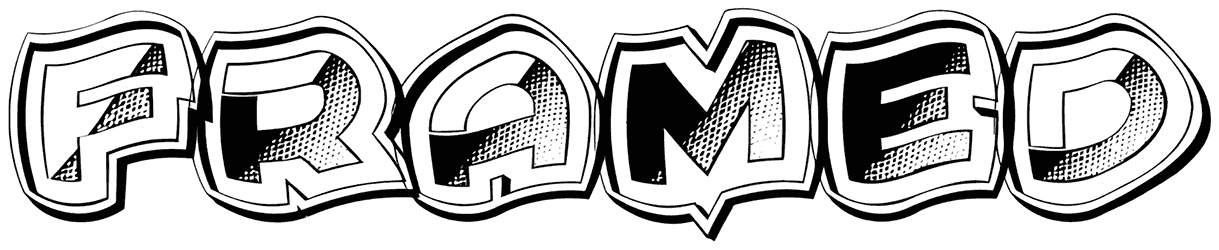
Framed Font
Framed font characters look like metal pieces stuck into bubbles suspended in the air. The lowercase letters and numbers of this display font are not complete. Owing to its floating structure, it is fantastic for psychedelic art designs, games, print T-shirts, and card designs. You can free the characters on the paper or screen, and see the fruit of your choice.